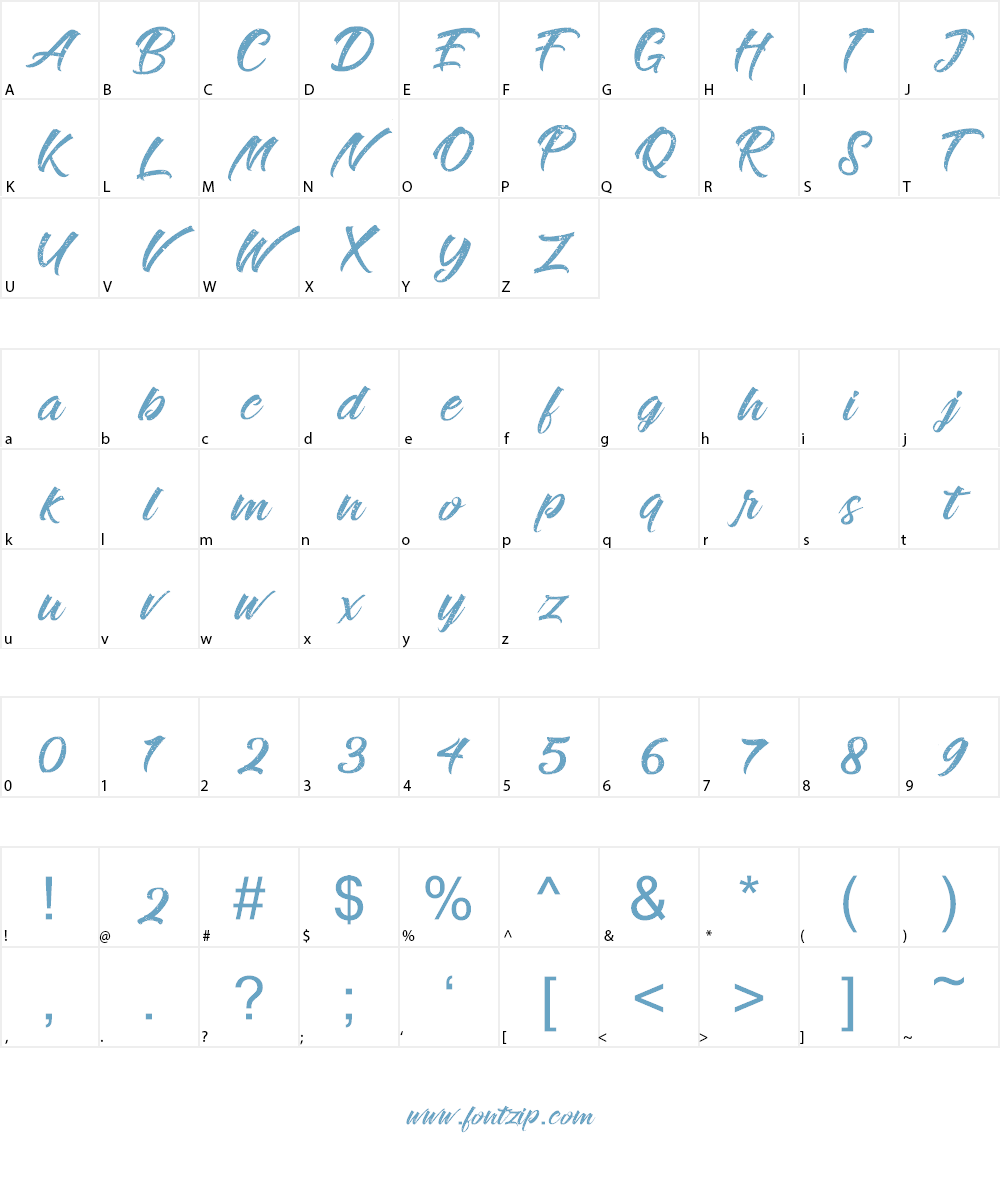
hi here is the free version of oure product the Rouge Maheira.
Rouge Maheira is a cool and good font, comes with 4 cool Variations, opentype features such as stylistic alternatesand ligatures also with multileagual suport .